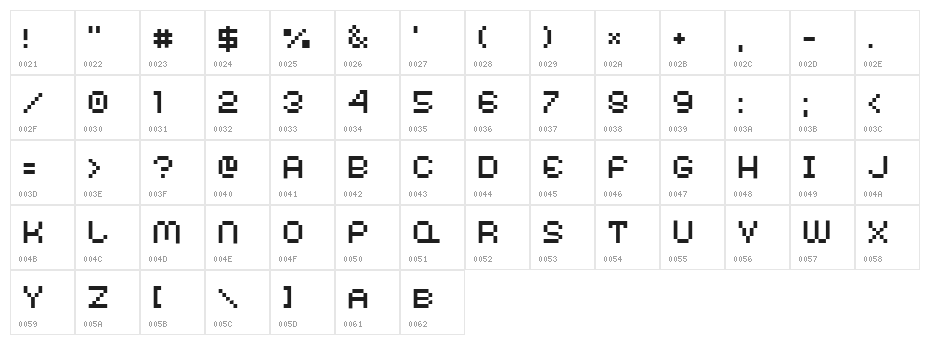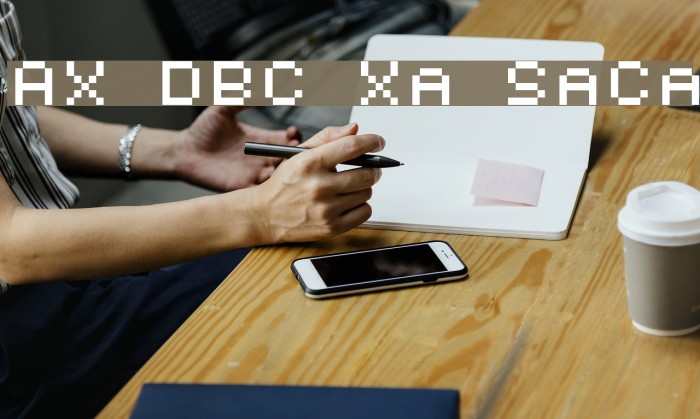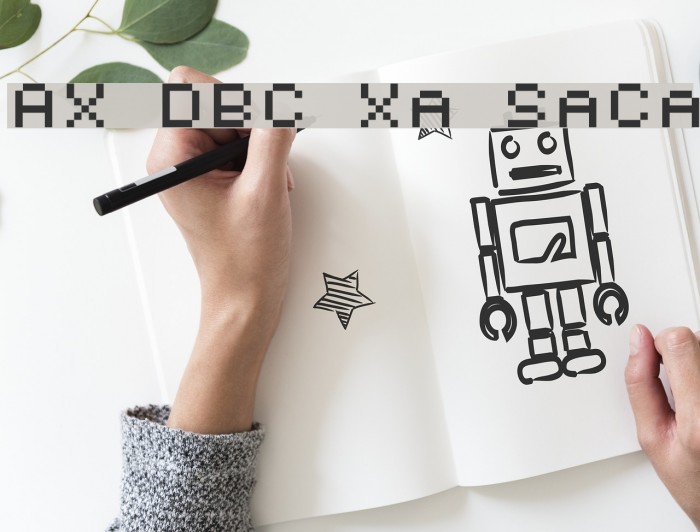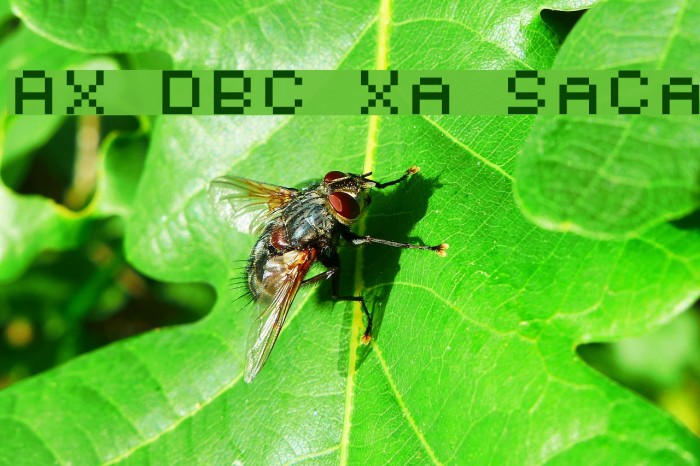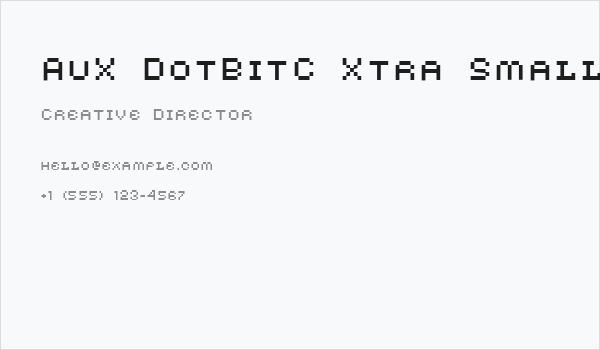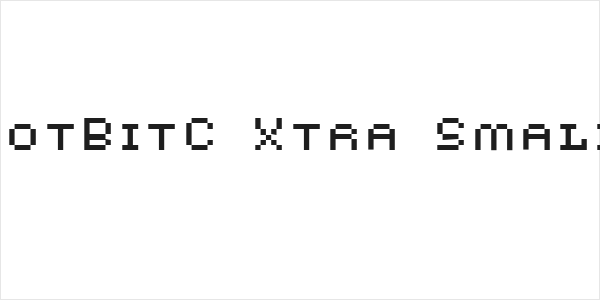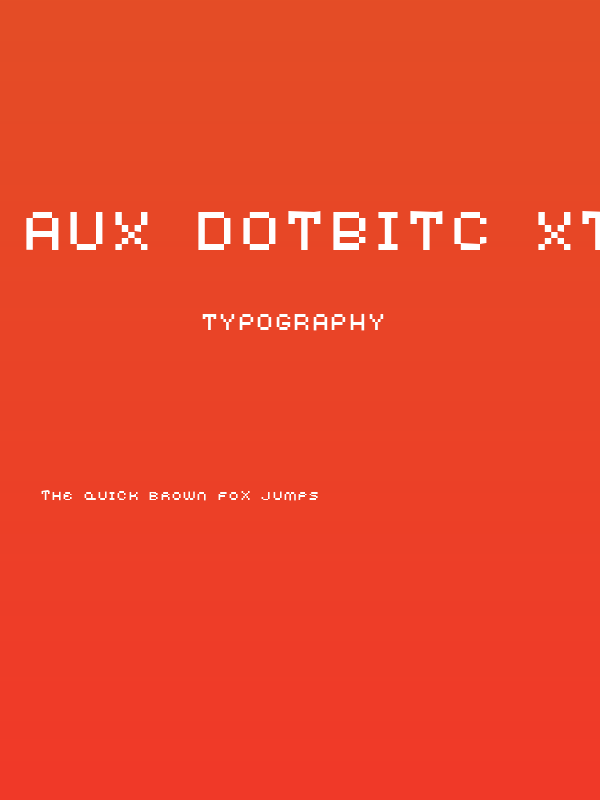
AuX DotBitC Xtra SmallCaps Font
AuX DotBitC Xtra SmallCaps Description
This font features a pixelated, grid-like design reminiscent of early digital displays and video game graphics. Each character is constructed with a uniform square grid, giving it a distinctly retro and technological feel. The characters are evenly spaced and maintain a consistent height, contributing to a clean and organized appearance. The font's geometric structure makes it highly legible and suitable for digital interfaces or projects that require a nostalgic or tech-inspired aesthetic. Its simplicity and clarity make it versatile for various design applications.
| Use Case | Logos, Digital interfaces, Posters |
| Proposed Projects | Ideal for video game design, tech-themed branding, digital art projects, and retro-style posters. |